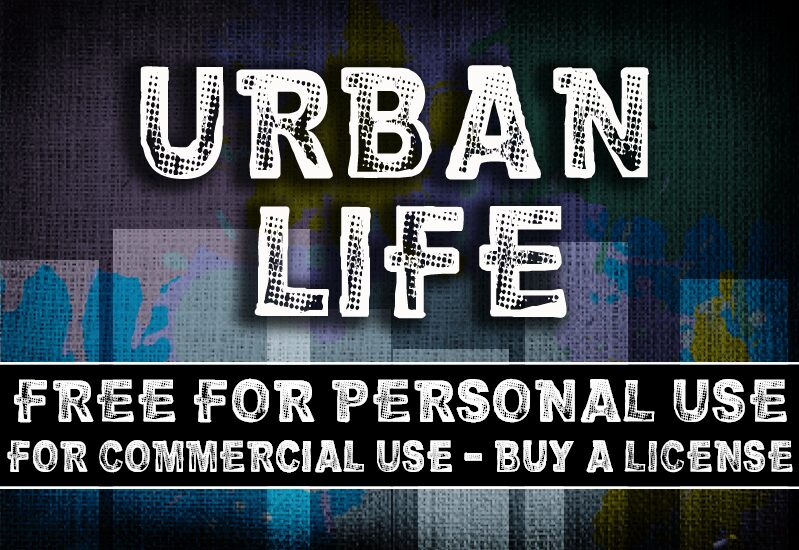
CF Urban Life by Cloutier Fontes is a free eroded display font with broad, heavy capitals and an urban edge. Dense clusters of chipped dots cut through the strokes, giving the lettering a spray-worn, weathered surface rather than a uniform distress pattern.
Streetwear labels and skate shops could use it for logos, packaging, and merchandise with an industrial or DIY slant. It also suits gritty gig posters. Across these uses, the pitted texture suggests ink, abrasion, and well-used city surfaces.
CF Urban Life
CF Urban Life Regular is a font by CloutierFontes, designed by Steve Cloutier in 2013.